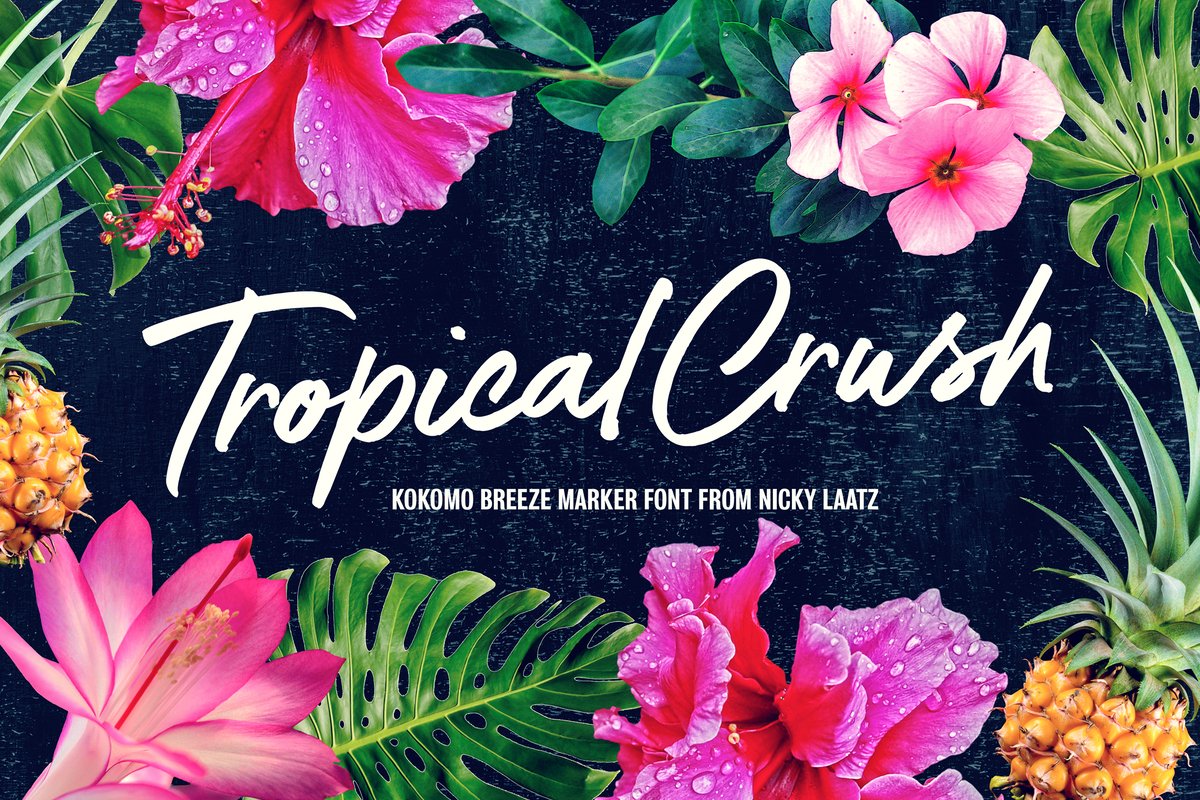
Kokomo Breeze Font
Say hello to Kokomo Breeze - A deliciously bold and nonchalant casual marker font.
Kokomo Breeze was designed to keep a naturally handwritten marker-style look , while still maintaining some subtle inky marker imperfections on its edges , to keep in line with a more realistic, yet very legible look.
Great for headlines, bold branding, classy packaging, eye-catching callouts and stand-out advertising, Kokomo Breeze is designed to be your jack of many trades.
Be sure to turn on your OpenType features when type with Kokomo Breeze - it’s packed with natural-looking ligatures and alternate characters for both upper and lower case - all of these opentype extras make your type design look mush less mechanical, and much more like naturally formed words as you type.
Pair it with a bold tall sans serif font, or a classy serif to add another whole new dimension to this very versatile marker font.
Great as large and small sizes, Kokomo Breeze is perfect for any size design.